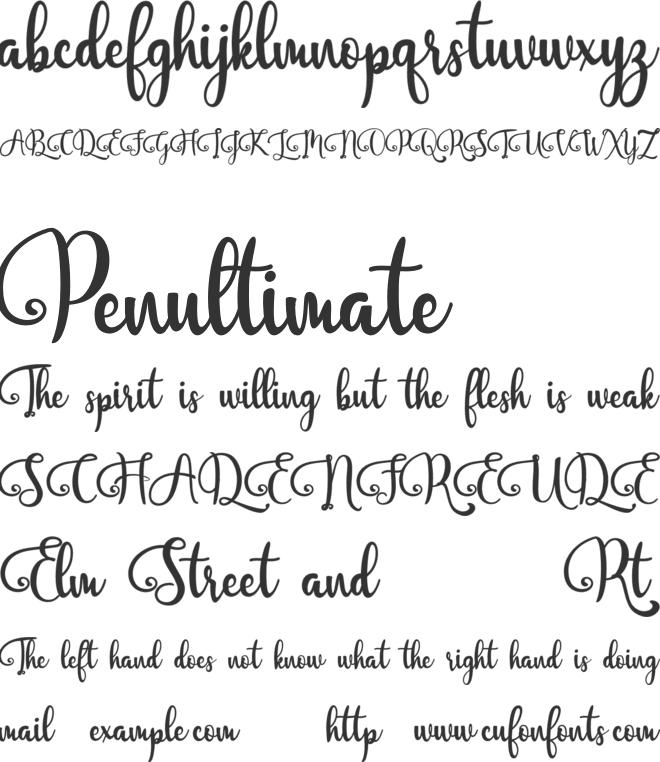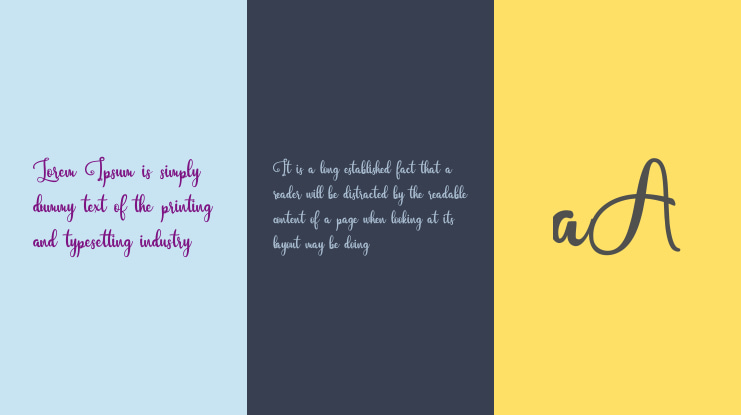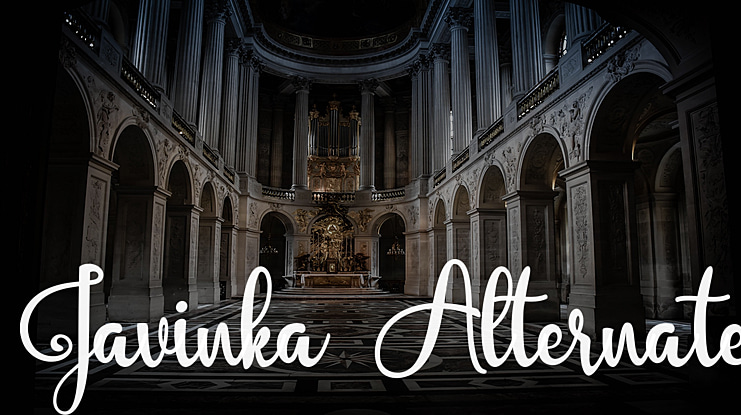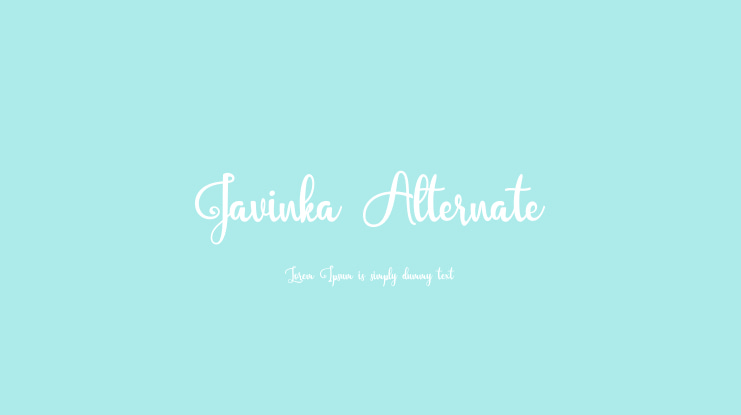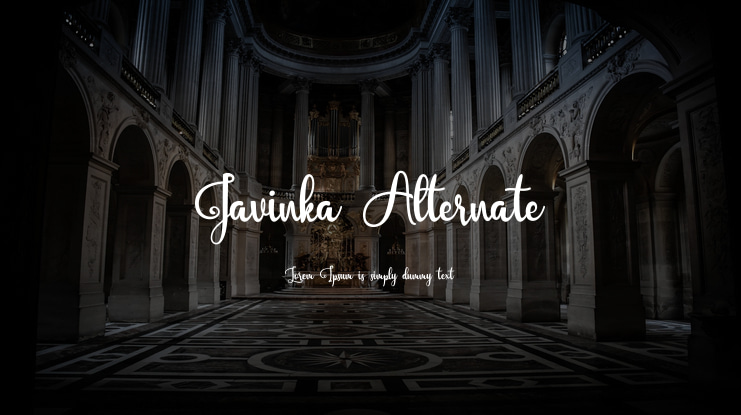
Javinka Alternate Font Family
Introducing Jevinka Font Script, Jevinka Font Script takes the theme of love in every touch of the letter. The story behind this font comes from the heart of the creator who has "moved on" from his past and has found a reason to be able to continue the story in the life story. Namely by opening your heart to put someone to love, the girl's name is "Javinka", so this font is dedicated to that woman and hopefully this inexorable feeling can get stuck in this font that I made.
To use this font, Javinka Script Font very suitable for beauty themed logos, digital love letters, greeting cards, wedding invitations, and can also be combined in slide presentations, etc.